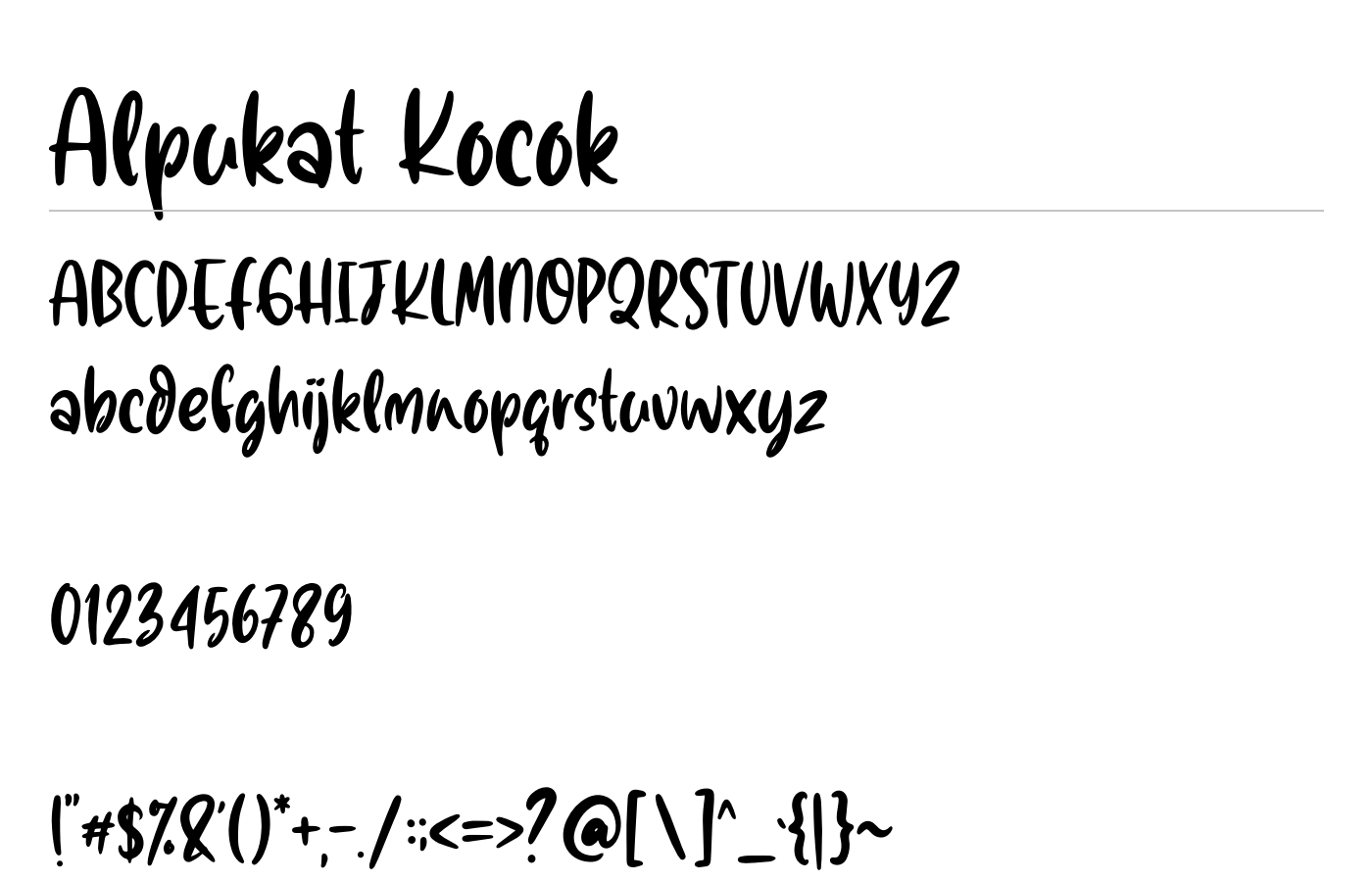
Alpukat Kocok is a playful and casual handwritten font with a lively, brush-like texture. Its tall, narrow letterforms and smooth, flowing strokes give it an energetic and friendly personality, making it ideal for creative projects, informal branding, and fun headlines. This font works well in designs that need a personal touch and approachable vibe.
Alpukat Kocok Font